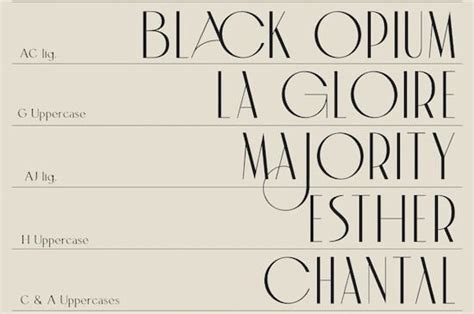
Crystal Noir Sans Serif Font
Crystal Noir Font. It features sharp, angular shapes and is. Web crystal noir is a modern sans serif font with a clean and minimal design.
Web crystal noir is my new elegant sans serif font that will bring in your projects a touch of luxury and style. It features sharp, angular shapes and is. Web crystal noir is a modern sans serif font with a clean and minimal design. Crystal noir is a great chic sans serif font that was designed and released by calamar studio. Web crystal noir is my new elegant sans serif font that will bring in your projects a touch of luxury and style.
Web crystal noir is a modern sans serif font with a clean and minimal design. Crystal noir is a great chic sans serif font that was designed and released by calamar studio. It features sharp, angular shapes and is. Web crystal noir is a modern sans serif font with a clean and minimal design. Web crystal noir is my new elegant sans serif font that will bring in your projects a touch of luxury and style. Web crystal noir is my new elegant sans serif font that will bring in your projects a touch of luxury and style.